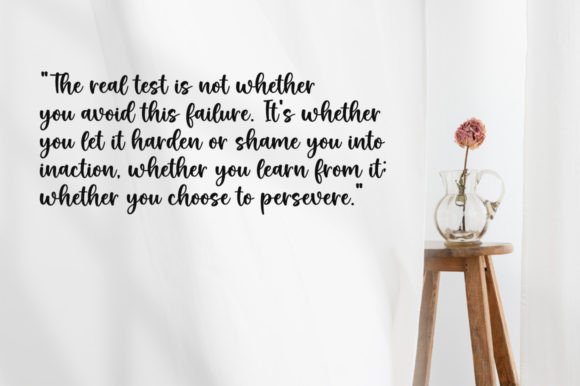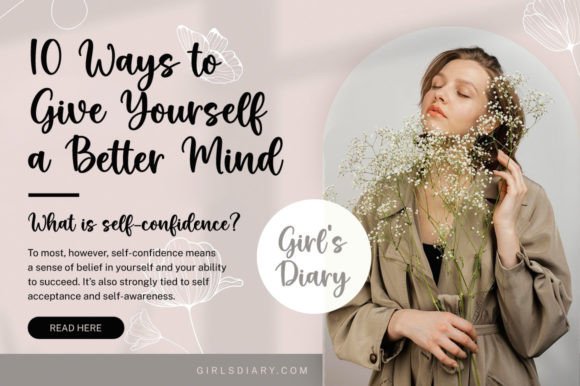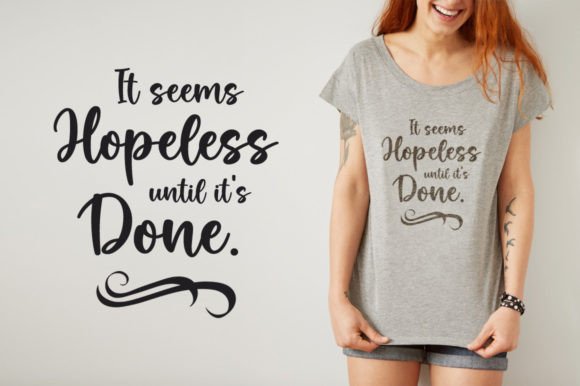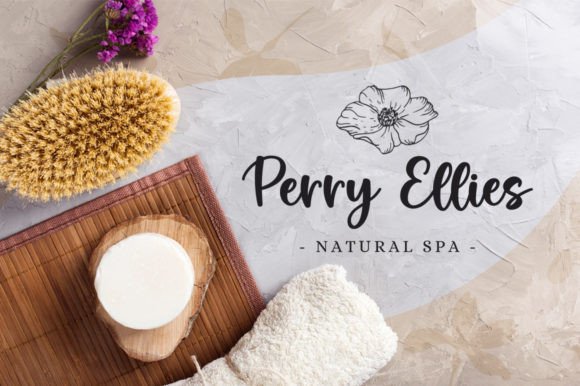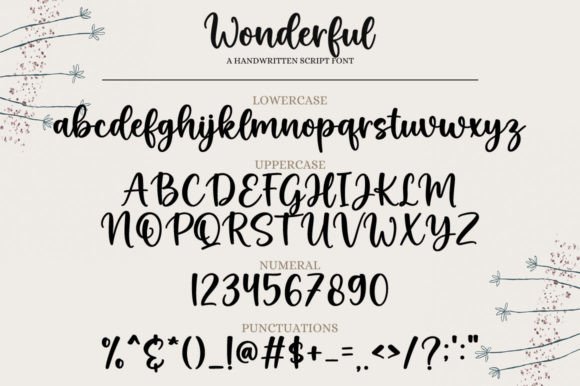
About Wonderful Font
Wonderful Font is a delicate and refined script font designed to bring sophistication and elegance to any creative project. With its stylish characters and graceful flow, Wonderful Font is perfect for designers looking to add a touch of class to logos, branding, invitations, and various design works.
This elegant script font stands out due to its smooth strokes and carefully crafted letterforms, which combine modernity with timeless beauty. Wonderful Font is highly versatile and works beautifully across multiple applications, including wedding invitations, greeting cards, packaging, social media graphics, and product branding.
One of the key features of Wonderful Font is its ability to communicate both professionalism and warmth. Whether you want to create an inviting logo or a romantic wedding card, this font provides the perfect balance between delicate charm and readable style. It is designed with great attention to detail, ensuring every character harmonizes flawlessly within your design.
WonderfulFont also includes a complete set of glyphs and stylistic alternates, making it easy to customize your text and create unique compositions. Its versatility extends to supporting multiple languages, making it suitable for a broad range of projects worldwide.
If you are seeking a font that enhances your creative projects with elegance and refinement, WonderfulFont is the ideal choice. It brings sophistication to your design while remaining easy to read and visually appealing. Add WonderfulFont to your toolkit today and experience how it elevates your logos, branding, invitations, and more to a truly wonderful level.